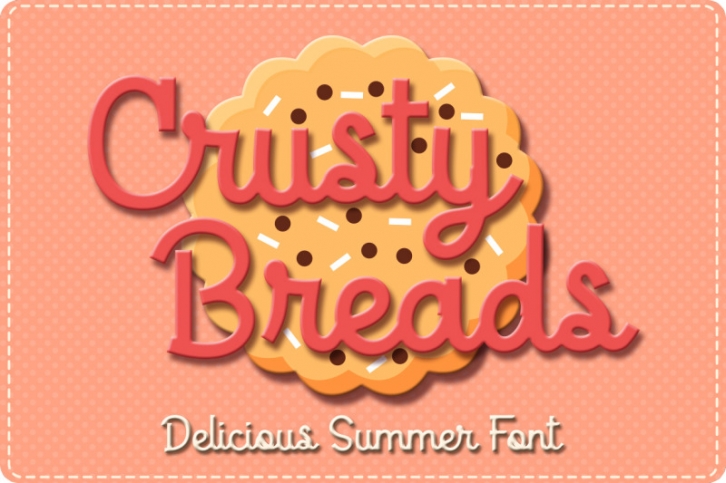
Introducing Crusty Breads, Delicious summer display font !
This font comes with strong character and clean nodes, great for quotes, cutting, printing project, advertisments, product packaging, product designs, label,  and some display craft.
- Standard glyphs ( Uppercase & lowercase )
- Symbols and punctuation